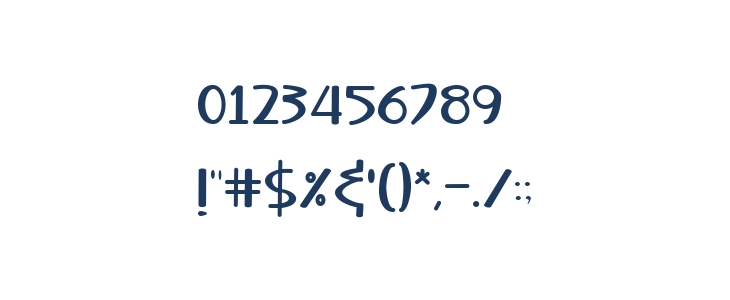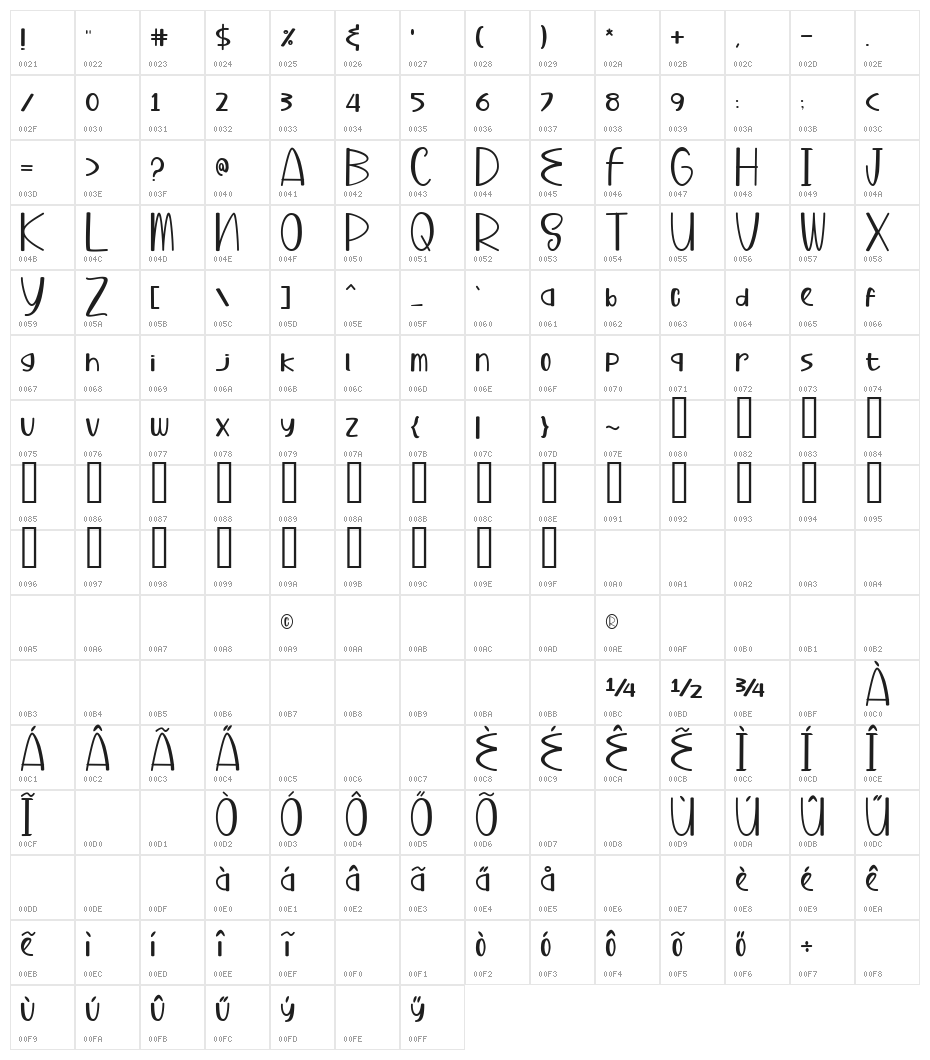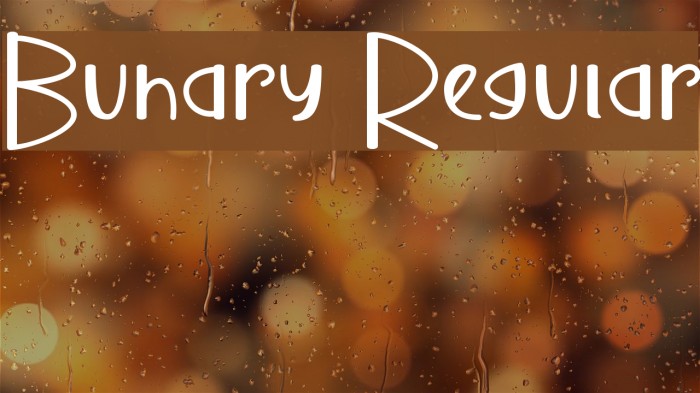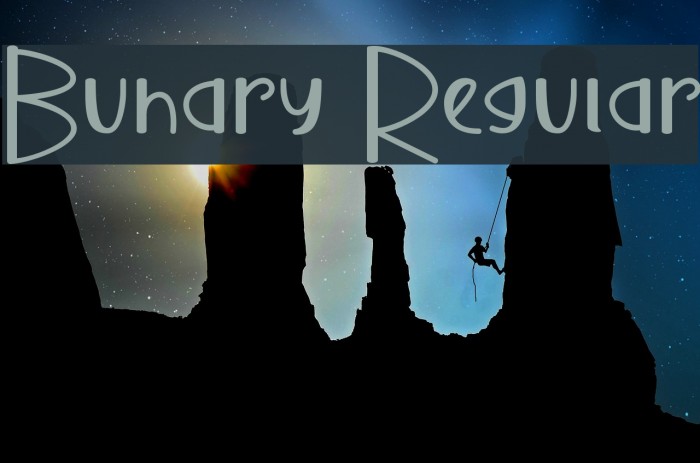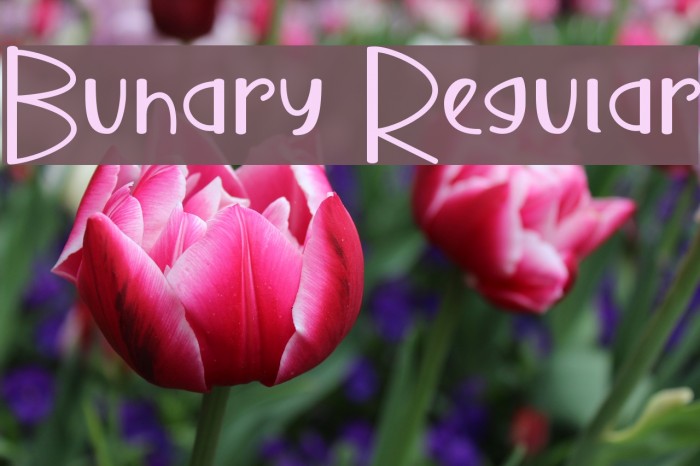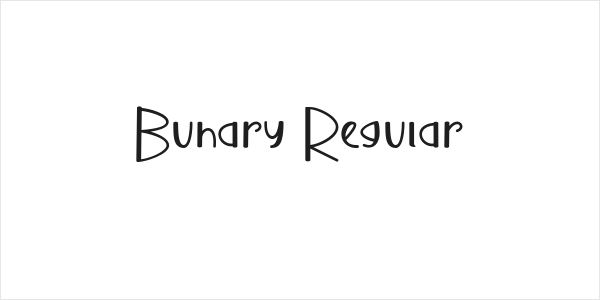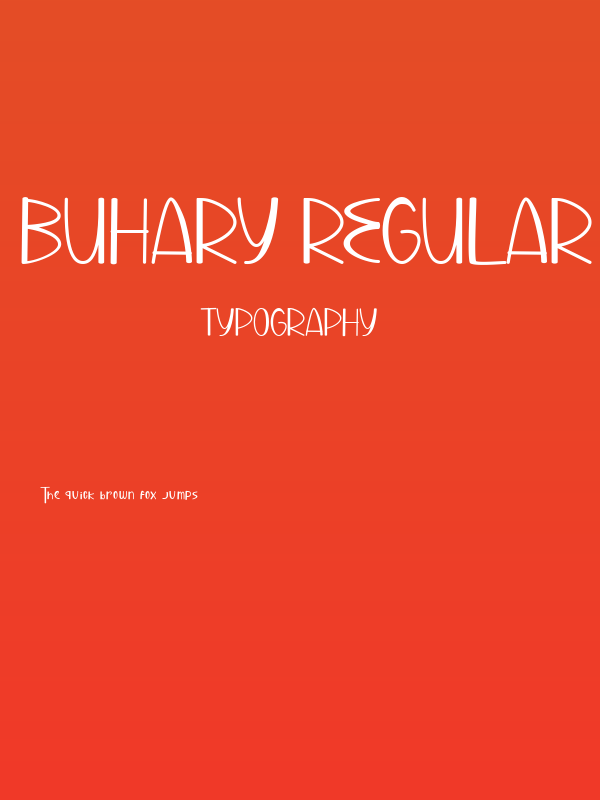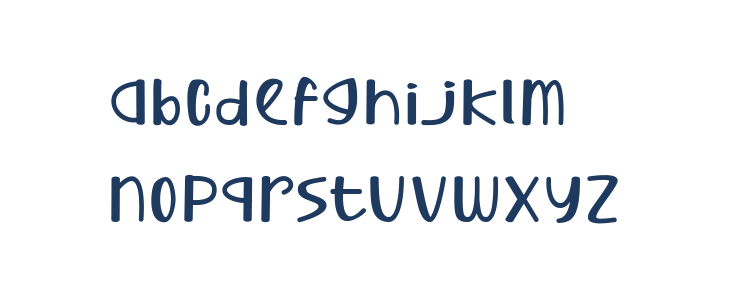
Buhary Regular Font
Buhary Regular Description
This font features a playful and whimsical style, characterized by its rounded and slightly irregular letterforms. The uppercase letters are tall and narrow, with a slight slant that adds a dynamic feel. The lowercase letters maintain a consistent height, with some characters like 'g' and 'y' having distinctive loops. The numerals are bold and clear, ensuring readability. The special characters are creatively designed, complementing the overall playful aesthetic. This font's unique style makes it suitable for projects that require a fun and informal touch.
| Proposed Projects | Ideal for children's books, playful branding, greeting cards, and creative posters. |